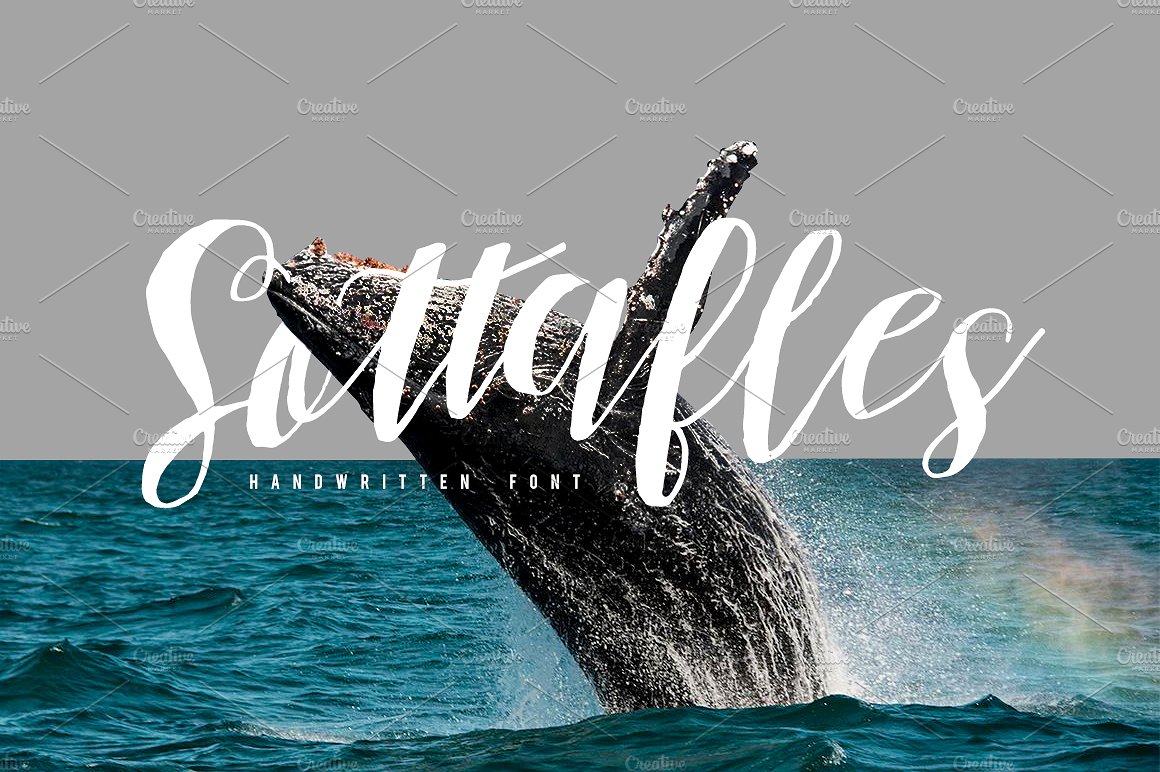
Sottafles Typeface + Swashes
Give your designs an authentic brush handcrafted feel. “Sottafles” is perfectly suited to stationery, logos and much more. It includes uppercase standard character, punctuation and multiple language support.